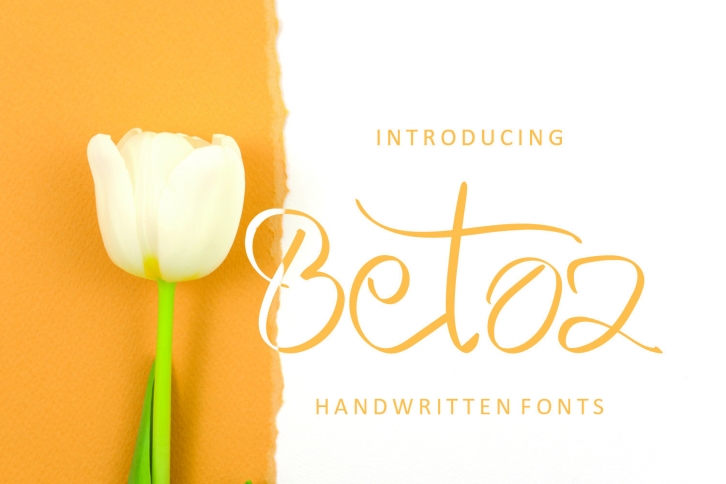
Betoz is a sweet and dainty script font. It looks beautiful on a variety of designs requiring a personalized style, such as wedding invitations, thank you cards, weddings, greeting cards, logos and so on.Â